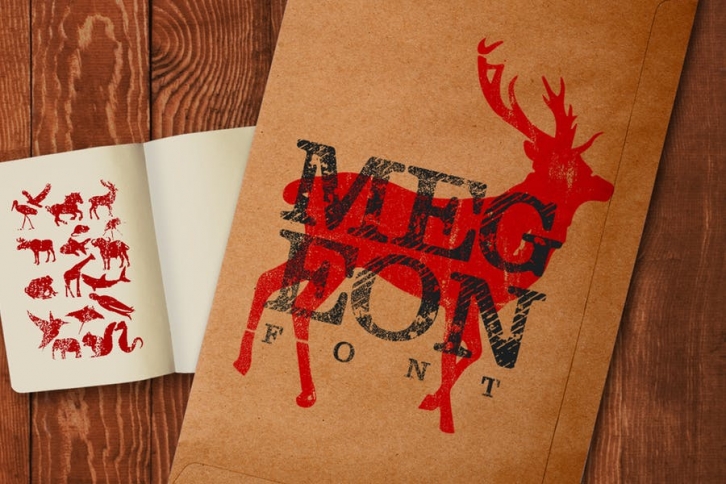
Megeon Font Download
Megeon Font *A bold//vintage/grunge style font set, perfect for creating headline display text very easy.
Perfect for Logos, Advertising, Music Industry, Apparel Design, Labels, Signage, Etc.